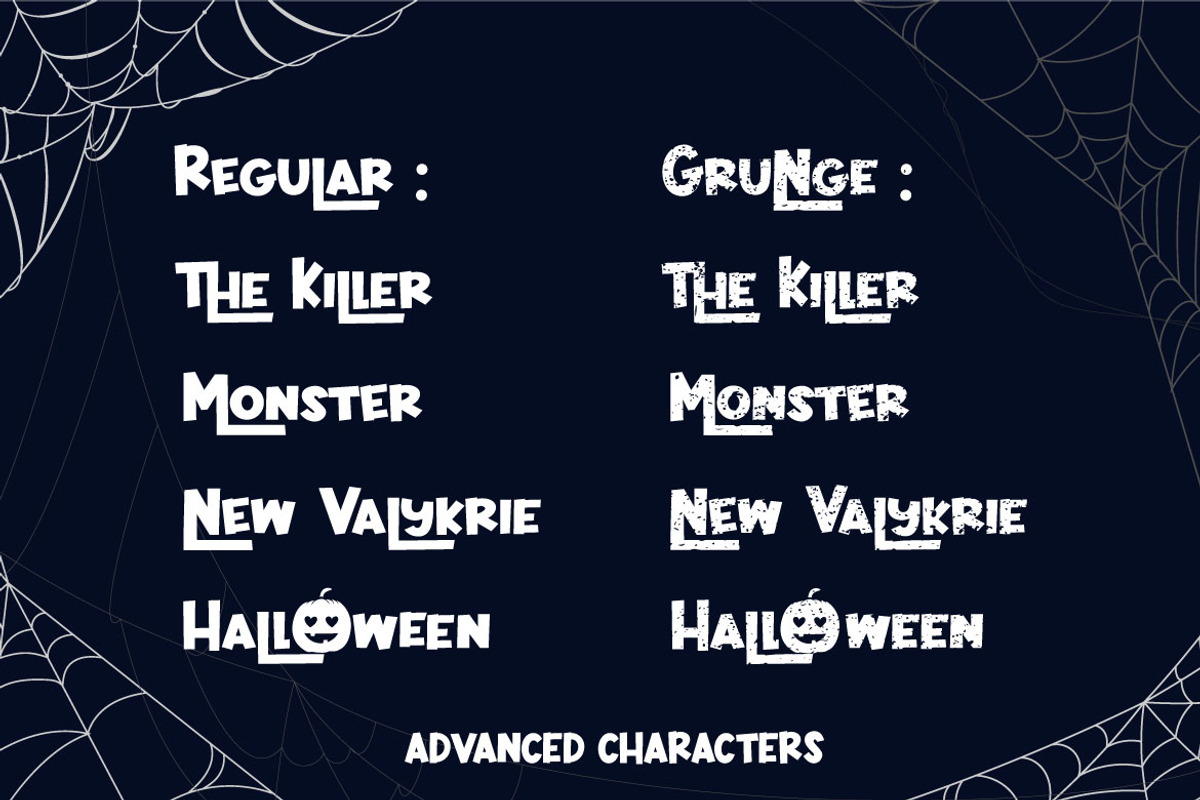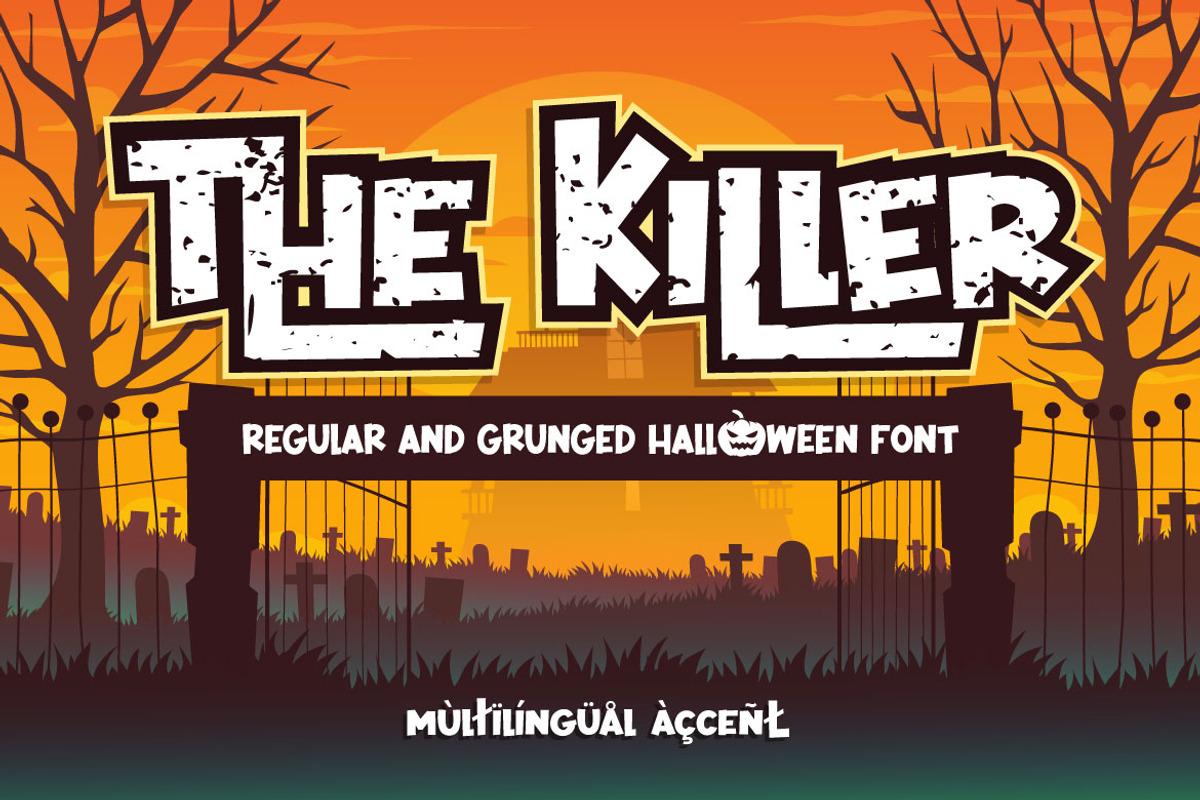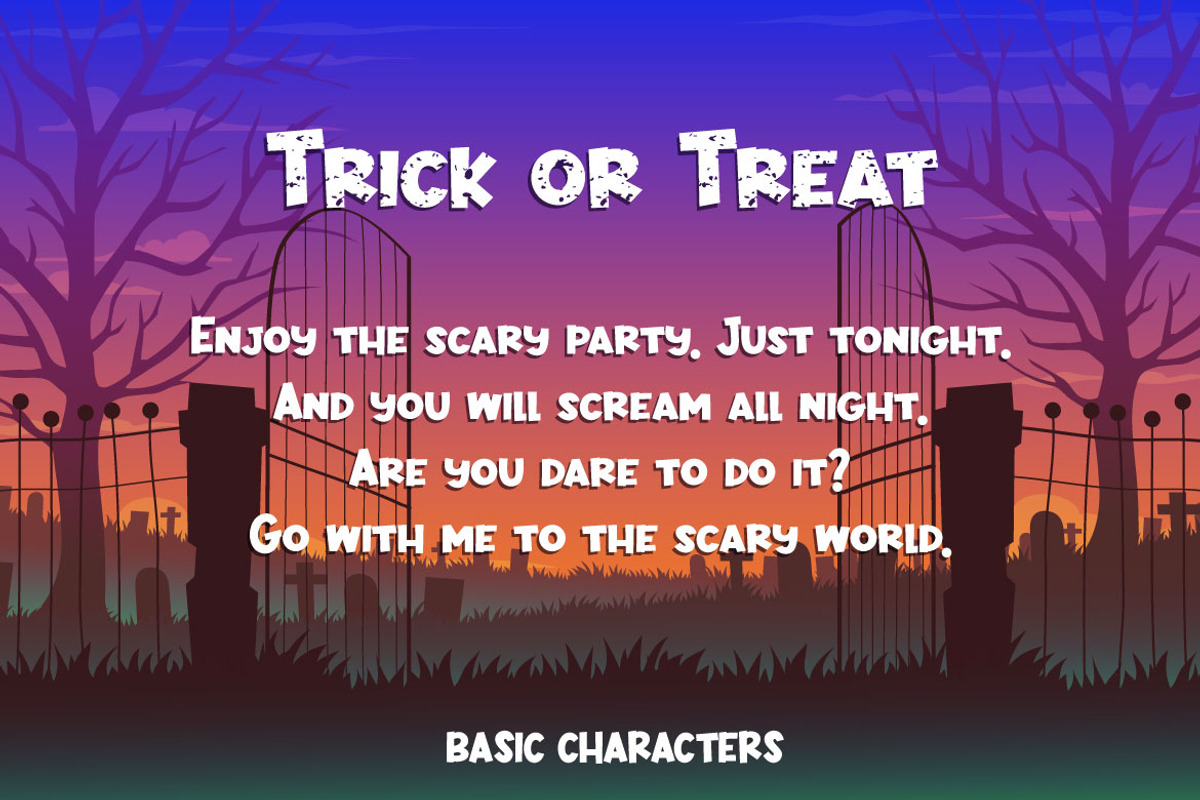
The Killer Halloween Family Font
Introducing you The Killer, a family bold Halloween font!
This font is suitable for Halloween Party invitation, flyer, poster, book cover, merchandise, movie poster, etc. Try this font and feel the scary inside the words!
version included: +Regular +Grunge